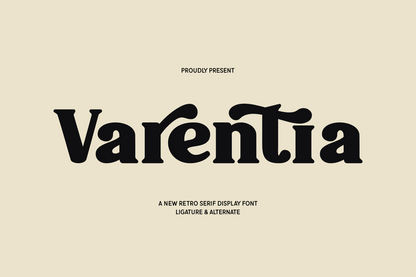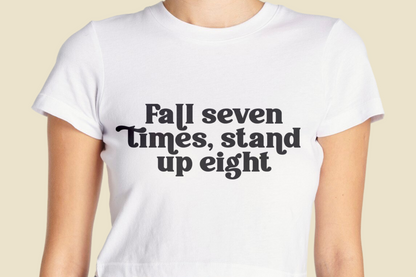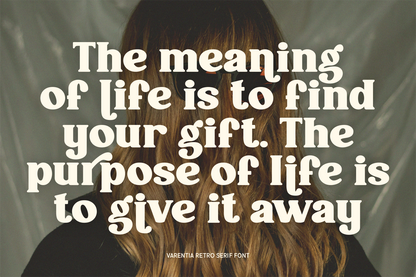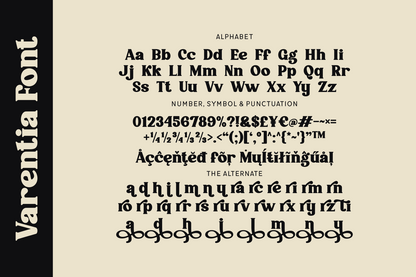
Varentia is a bold retro serif display font with playful ligatures and charismatic alternates that give it a distinctive vintage charm. Perfect for projects that aim to feel nostalgic, stylish, and unmistakably bold.